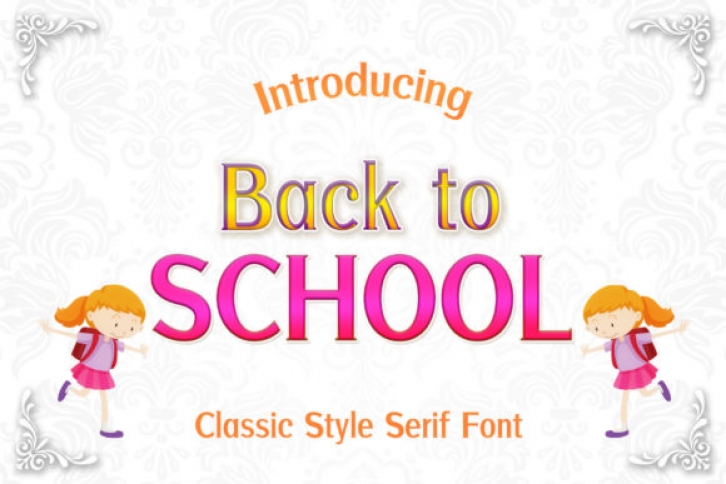
Back to School is a bold and authentic serif font. It can easily be matched to an incredibly large set of projects, so add it to your creative ideas and notice how it makes them stand out!